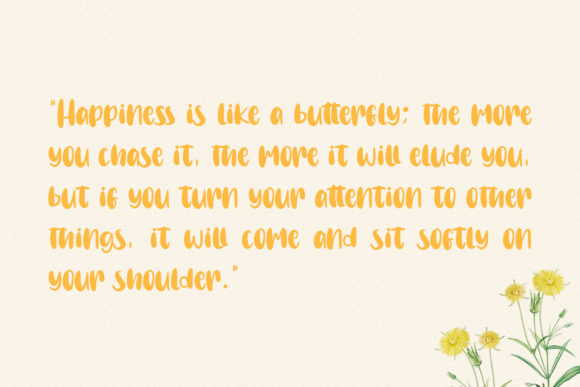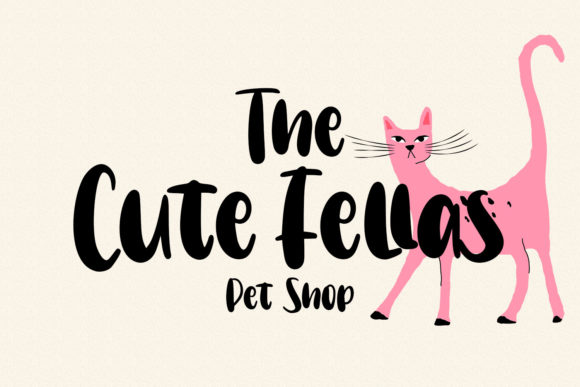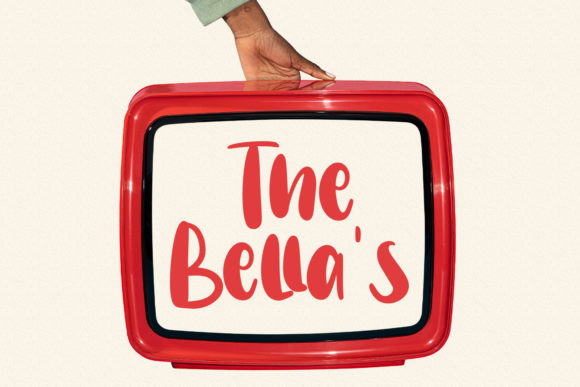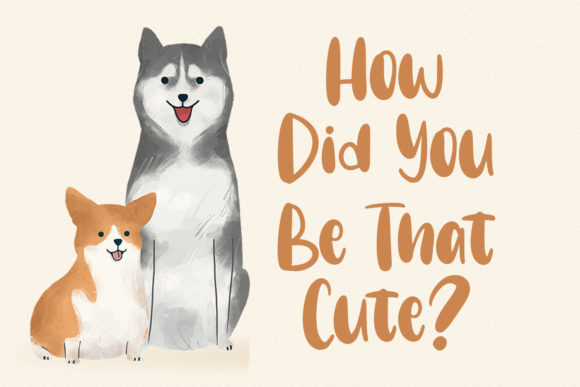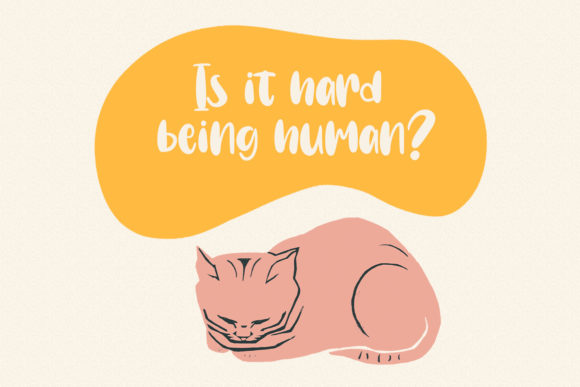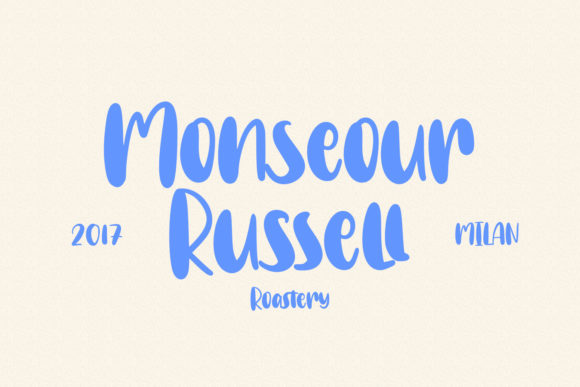
Introduction to Franches Font
Franches is a fun and adaptable display font.
Whether you use it for cartoon related designs, children games or just any creation that requires a lovely touch, this font will be an amazing choice .
Franches Font offers exceptional quality and versatility, making it a valuable addition to your design toolkit. Whether you’re creating for personal projects or commercial use, Franches Font delivers professional results.